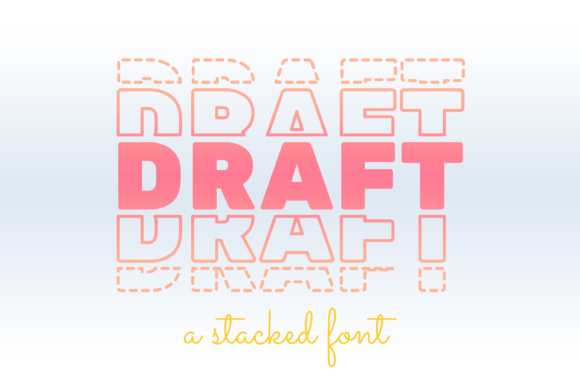
Immerse yourself in the captivating realm of Draft Font, a display font family that will ignite your creative spirit. Unleash your artistic flair with this remarkable font, meticulously crafted by WADLEN, a renowned font designer known for creating typographic masterpieces. Draft Font is not just a font; it's an experience that will transform your designs into captivating works of art.
Unleash your imagination and let Draft Font guide you through a journey of creativity. Whether you're a seasoned graphic designer, a passionate crafter, or simply someone who appreciates the beauty of typography, Draft Font will elevate your projects to new heights. Its versatility knows no bounds, adapting seamlessly to a myriad of design endeavors, from custom designs to DIY crafts. Let your creativity flow freely as you explore the endless possibilities that await you with Draft Font.
Picture yourself immersed in a world where your designs come alive, where every letter dances gracefully on the page, captivating the hearts and minds of your audience. Draft Font possesses an inherent charm that will leave an unforgettable impression, whether you're creating logos, posters, invitations, or any other visual masterpiece. Its exquisite curves and elegant lines will add a touch of sophistication and allure to your creations, making them stand out from the crowd.
With Draft Font, you'll embark on a creative adventure like no other. Discover the joy of crafting personalized greeting cards that express your heartfelt emotions, design stunning posters that demand attention, or create unique T-shirt designs that reflect your individuality. The possibilities are truly endless, limited only by the boundaries of your imagination.
So, embrace the beauty of Draft Font and let your creativity flourish. Immerse yourself in the world of typography and experience the transformative power of this remarkable font. Seize the opportunity to make your designs shine brighter than ever before.